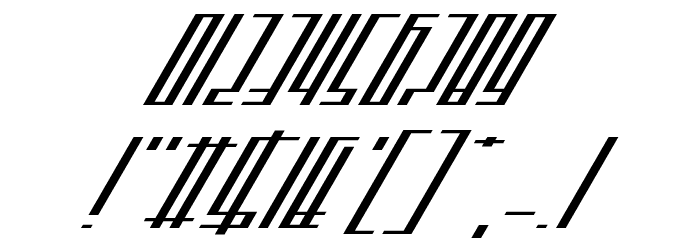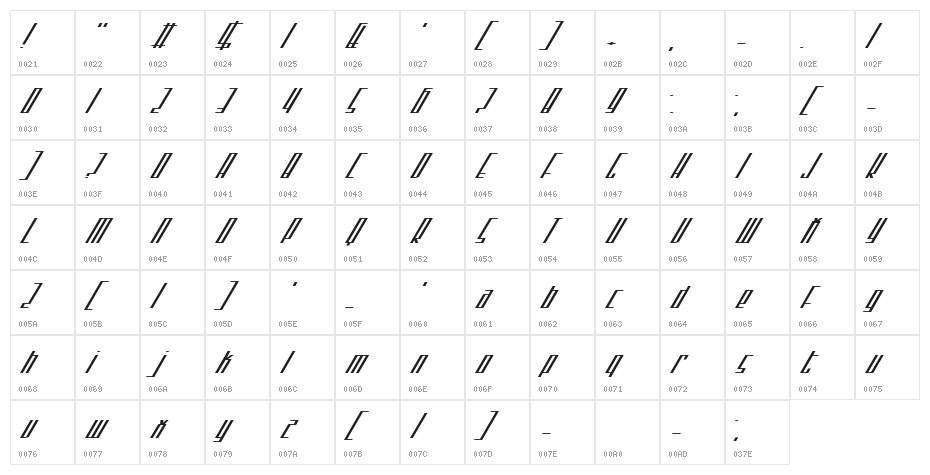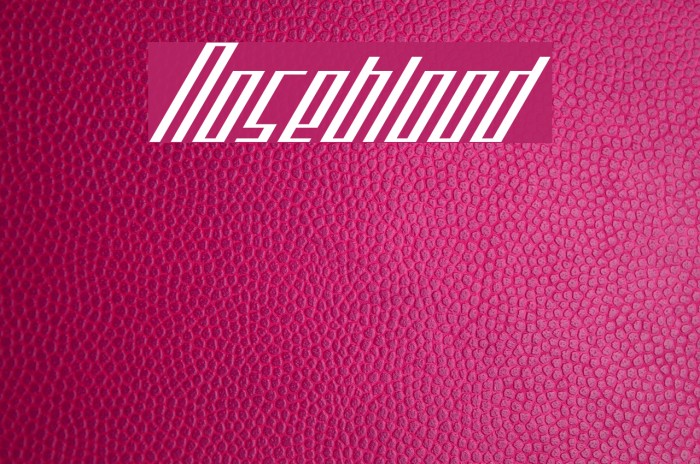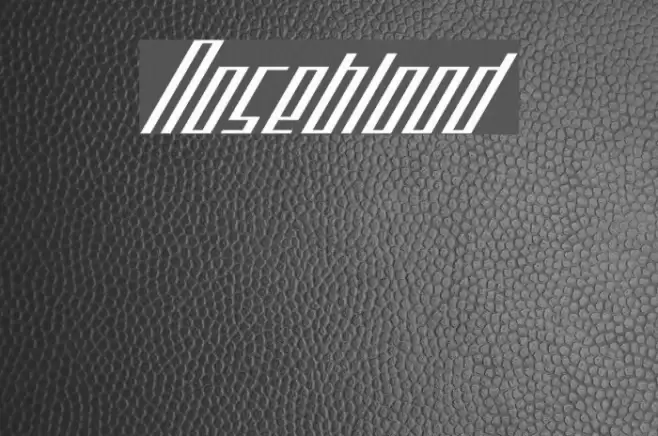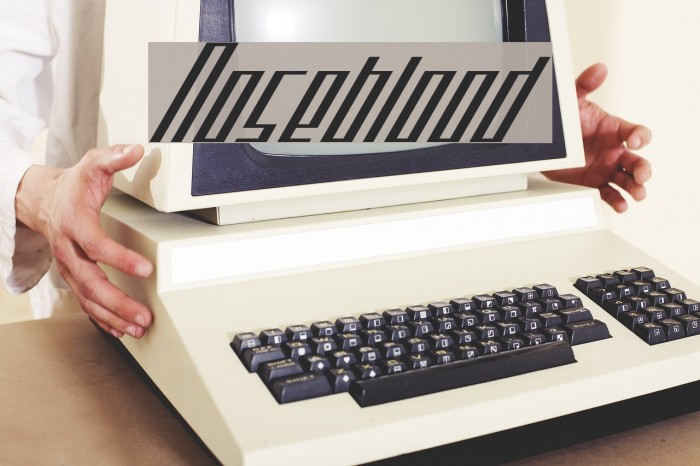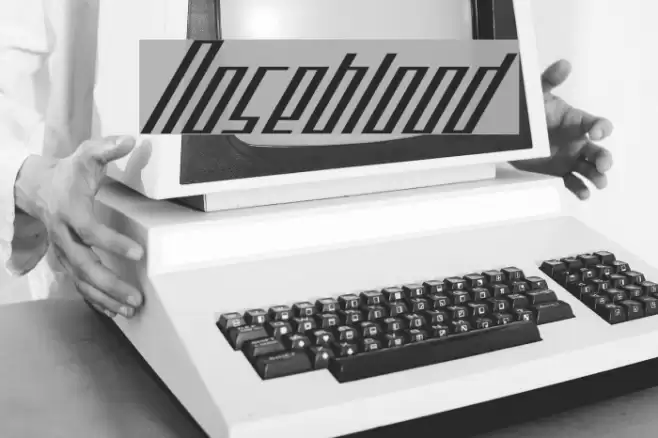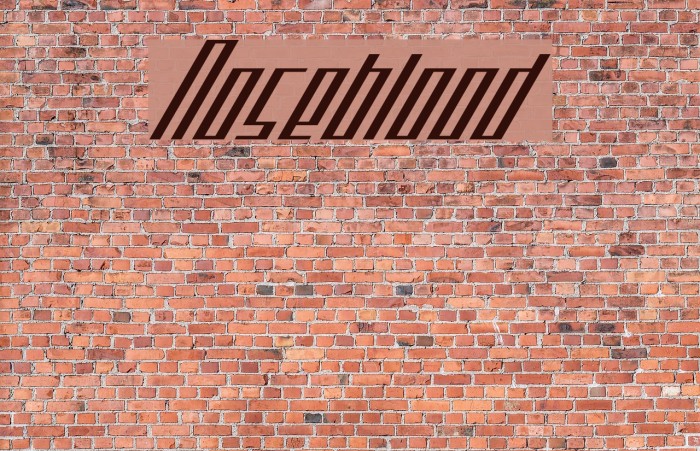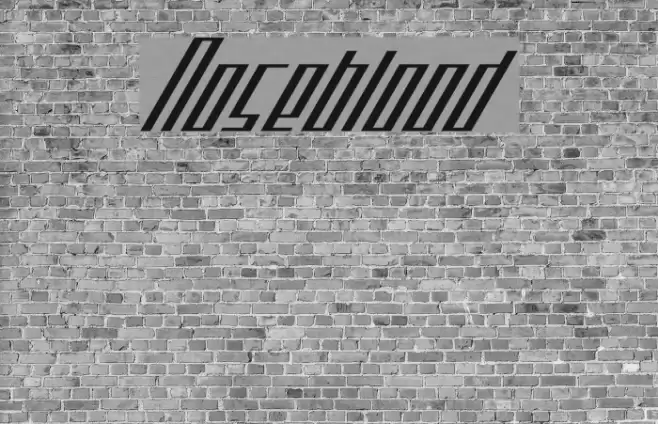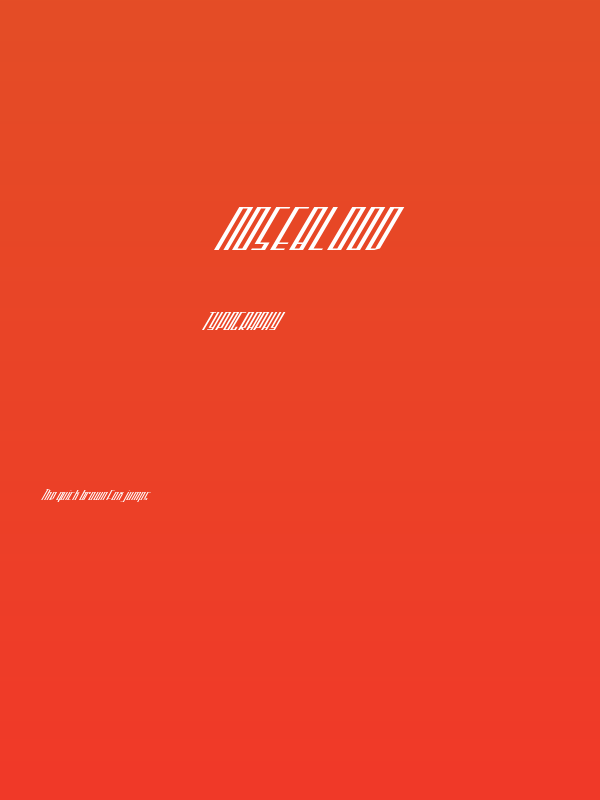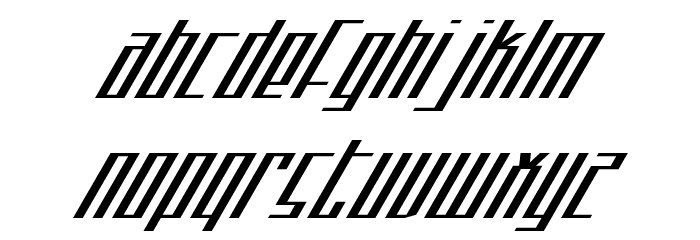
Noseblood Font
Noseblood Description
This font features a bold, angular design with a distinct slant, giving it a dynamic and energetic appearance. The characters are elongated with sharp edges and a consistent diagonal orientation, creating a sense of movement. The uppercase and lowercase letters maintain a uniform style, while the numbers and special characters seamlessly integrate into the overall design. The font's geometric structure and modern aesthetic make it stand out, ideal for projects that require a striking visual impact.
| Proposed Projects | Ideal for branding, posters, album covers, and any project needing a bold, modern statement. |